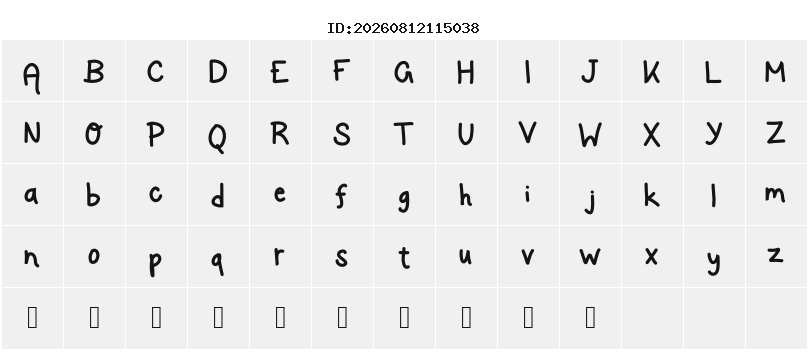
• Font Name: Rock Salmon
• Full Font Name: Rock Salmon
About Rock Salmon.ttf
Rock Salmon.ttf is a modern, elegant sans-serif font designed for ultimate readability and visual harmony. Perfect for branding, headlines, web design, and print materials.